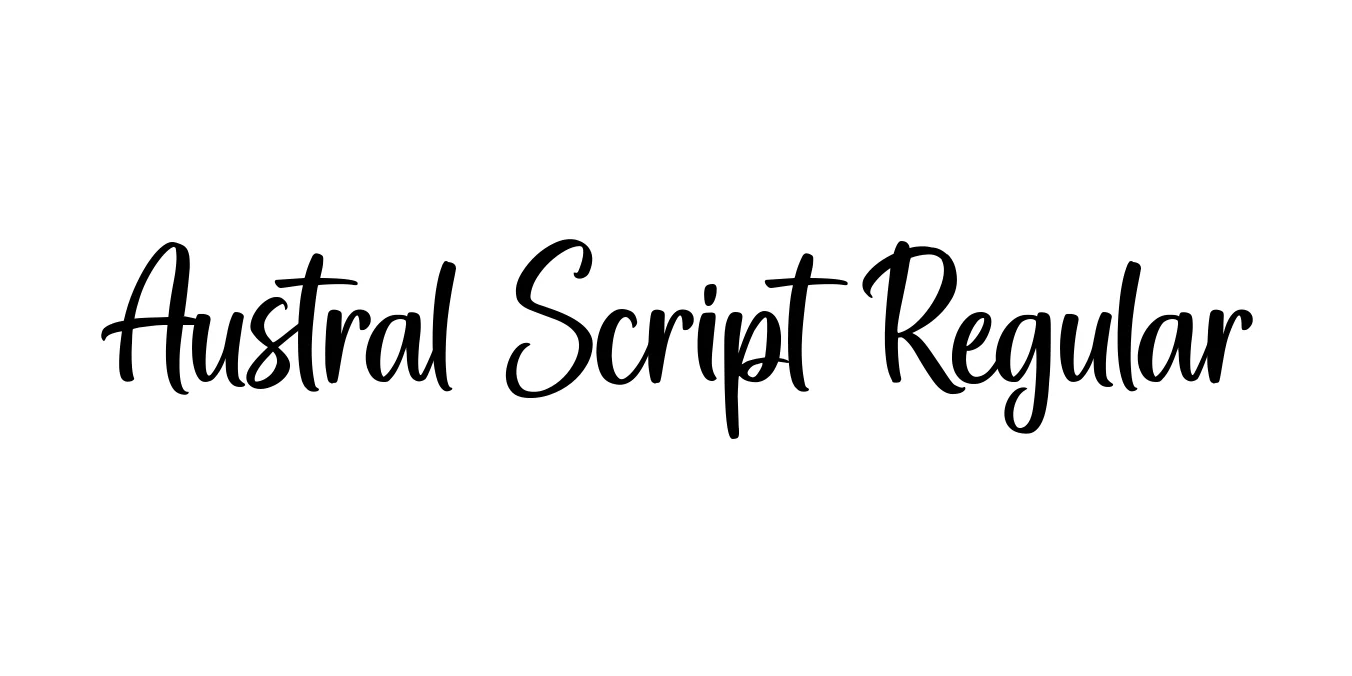
Austral Script Regular
Designed by Luciano Vergara
| Font Name | Austral Script |
| Category | Script / Hand-drawn |
| Designer | Luciano Vergara |
Austral Script Regular is a beautifully crafted script typeface designed by Luciano Vergara and released through the renowned Latinotype foundry. It stands out for its unique, hand-drawn aesthetic that captures a rustic and organic essence, making it a perfect choice for designs that require a touch of human warmth and authenticity. The font features textured strokes and slightly irregular edges that mimic the look of real ink on paper, providing a nostalgic yet contemporary feel to any creative project.
This typeface is part of the larger Austral family, which is highly celebrated for its versatility and handcrafted charm. The Regular weight is particularly valued for its balance between legibility and character, often being utilized in high-end branding, artisanal packaging, and sophisticated editorial layouts. Whether you are designing a logo for a cozy boutique or creating stationery for a special event, Austral Script Regular delivers a distinct personality that resonates with audiences seeking a handmade touch.
Austral Script Regular Best Uses
Ideal for creating authentic logos with a handcrafted feel.
Perfect for artisanal products and organic food labels.
Adds a personal, elegant touch to wedding and event stationery.
Great for eye-catching quotes and lifestyle graphics.